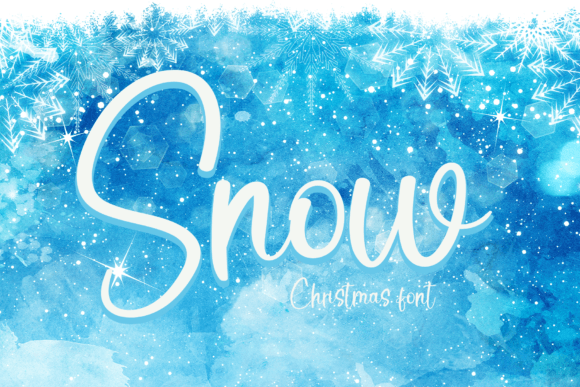
Introducing Snow Font - the ultimate script typeface that embodies elegance and femininity. Created by the talented pinkmeca, this enchanting font is sure to captivate your senses and elevate your designs to new heights.
Are you in search of the perfect font for your ebook headers? Look no further! Snow Font is the answer to your prayers. With its delicate curves and graceful strokes, it adds a touch of sophistication to any text, making your ebook stand out from the crowd.
But Snow Font doesn't stop there. Its versatility knows no bounds. This remarkable typeface is not only ideal for ebook headers, but also for a wide range of creative projects. Whether you're designing wedding stationery, invitations, or even floral arrangements, Snow Font will add a touch of charm and allure to your creations.
Imagine the impact this font will have on your packaging designs. With Snow Font, your products will exude elegance and refinement, instantly catching the eye of potential customers. It's the perfect choice for any brand looking to leave a lasting impression.
And let's not forget about social media. In today's digital age, visual content is king, and Snow Font will help you reign supreme. Create stunning posts that command attention, engage your audience, and ultimately drive more traffic to your online store.
Don't settle for ordinary fonts when you can have extraordinary. Snow Font is here to transform your designs and take them to the next level. With its exquisite details and timeless beauty, it will make your words come alive and leave a lasting impression on anyone who lays eyes on them.